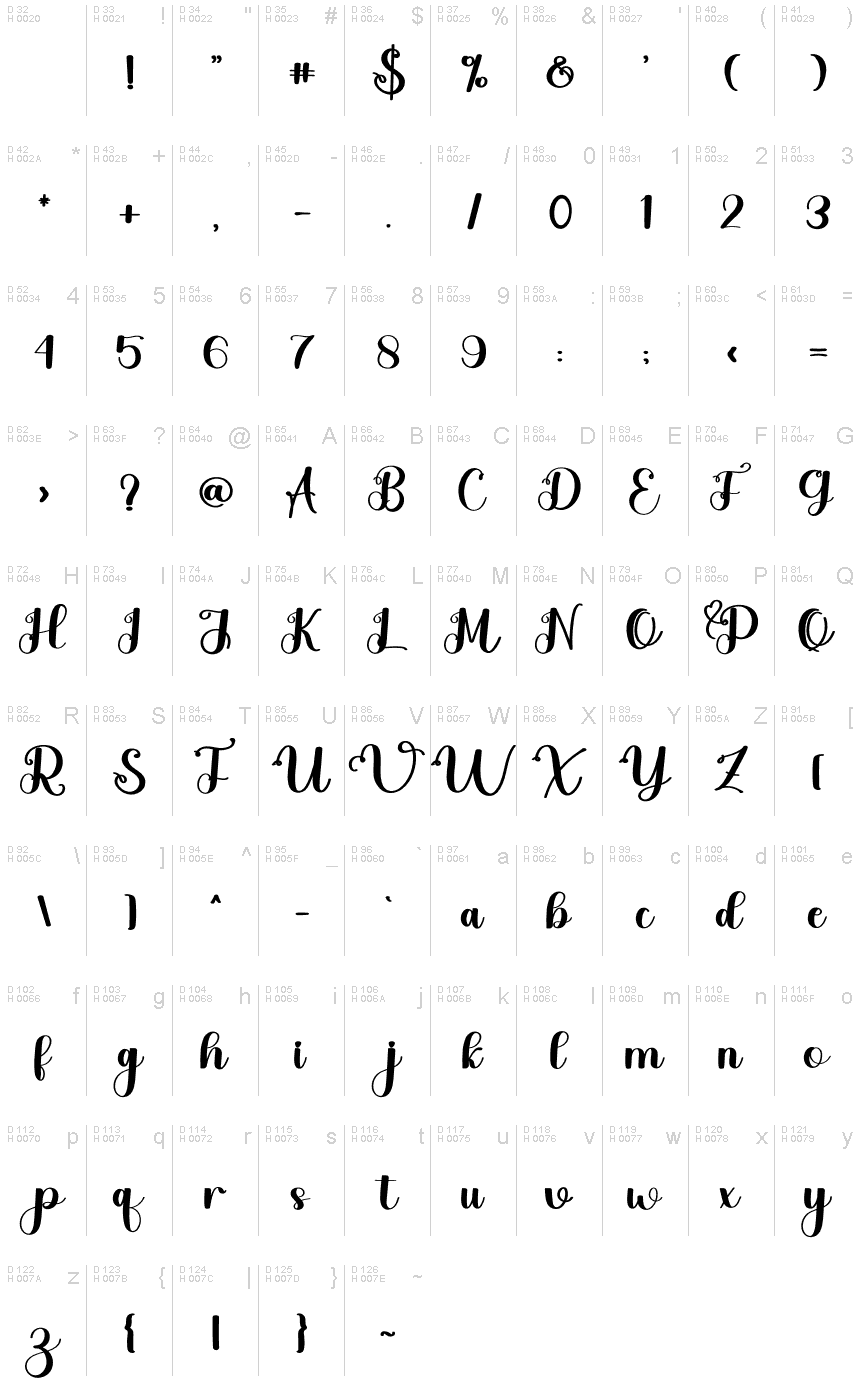
Pretty Vintage
Pretty Vintage, created by FreshtypeINK, is a mesmerizing calligraphy font that captures the essence of romance.
With its delicate strokes and graceful curves, this semi-light typeface is perfect for wedding invitations, love letters, and heartfelt quotes. Its vintage charm adds a touch of nostalgia to any project, making it ideal for creating personalized Valentine's Day cards or designing elegant logos for boutique shops.
Whether you're planning a whimsical event or aiming to evoke timeless beauty in your designs, Pretty Vintage will infuse your creations with an enchanting allure.